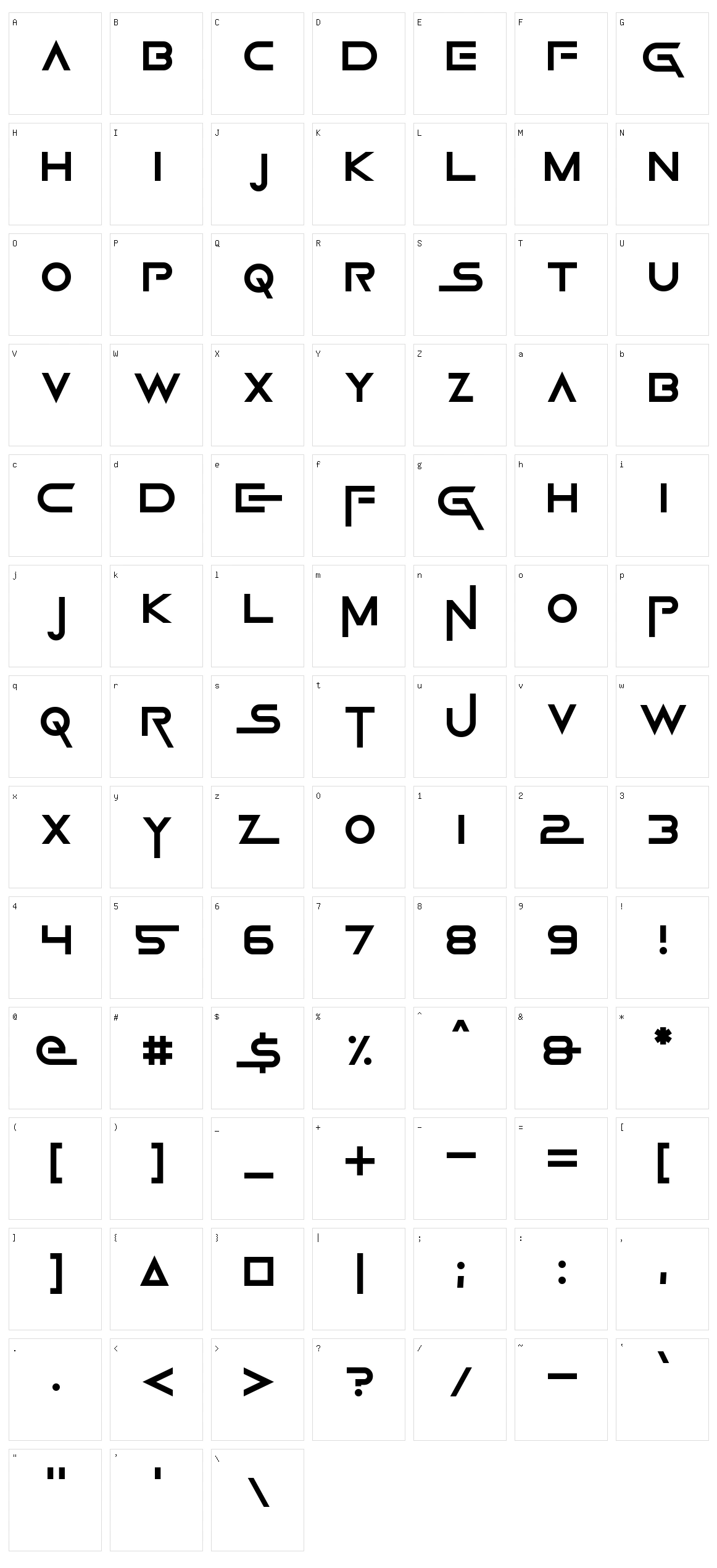
Game Of Squids
Designed by: Hawtpixel
It is inspired by the "Squid Game" series logo.
Lowercase contains "stressed/elongated" characters.
Uppercase contains "normal" characters.
To get a circle, traingle and square shape, please use "o", "{", and "}"
Please use any mix of lower and uppercase to achieve your desired look!